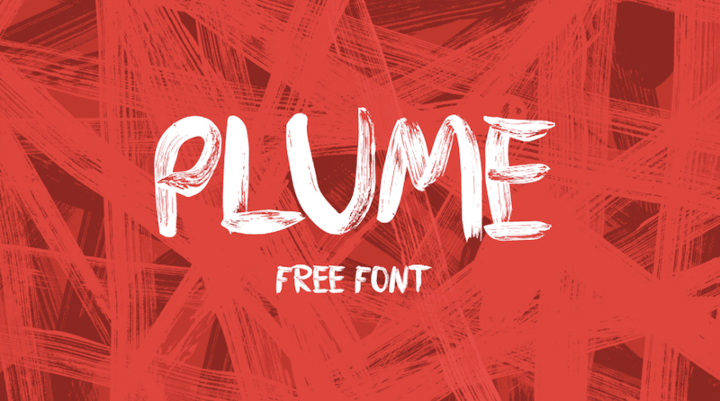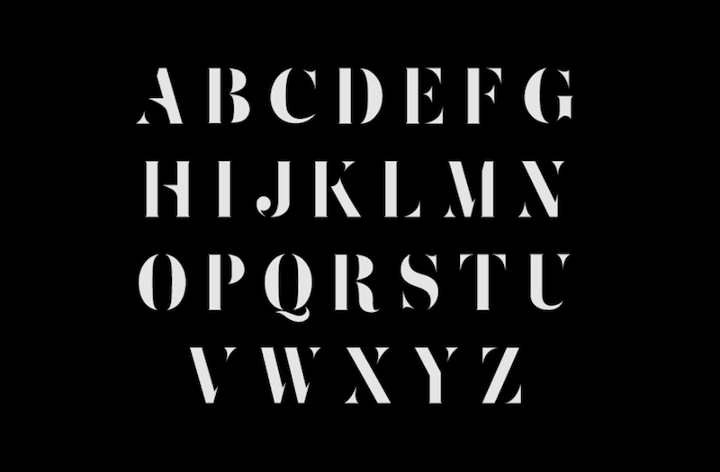
When working on a project yourself, freebies like these can come to the rescue when you have to get along on a tight budget but, more often that that, they simply are the missing piece that’ll make your design complete.
L-7 Stencil
Luis Calzadilla’s font L-7 Stencil is a good match for all those occasions when you want to make a bold statement while keeping the typeface itself rather than sleek and slim. Characteristic for the sans-serif font are the stencil-style, fragmented letters and the rounded terminals. The font supports capital letters and numbers and can be used for free in personal projects. If you want to use it in a commercial project, please be sure to credit the designer.
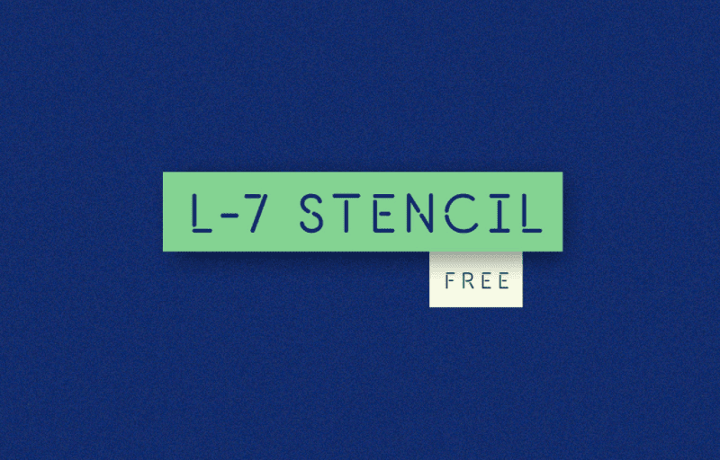
Westfalia
It’s not only the name of the brush sans Westfalia that wakes allusions of the famous campervan. With its hand-drawn feel, messy edges, and varied line thickness, the font also caters for a warm feeling of authenticity and adventure. Westfalia comes in one weight, with capital letters, numbers and punctuation marks, and works especially well as bold headings or on posters. It’s free to use for both personal and commercial projects.
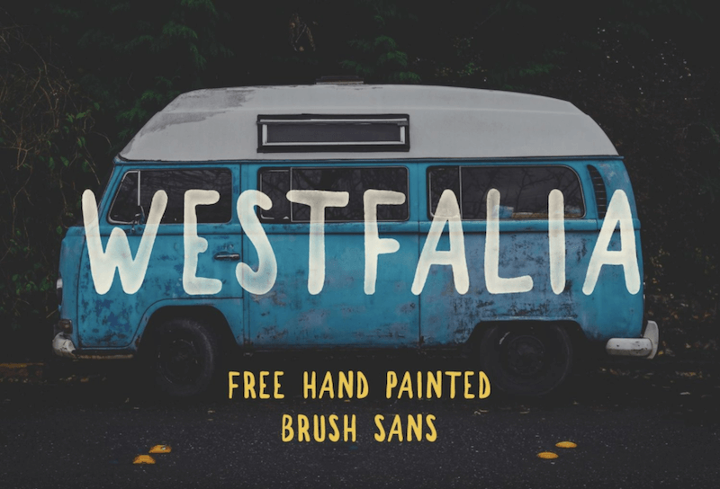
Setta Script
If you’re looking for something to add a personal touch to your projects, the modern calligraphy typeface Setta Script might be for you. It comes with 244 glyphs and 69 alternate characters with Opentype features. Ligatures are also supported. A perfect match for greeting cards and invitations.
Old Growth
Inspired by the old growth forests of the West Coast, Old Growth is a rough sans-serif font with edges as uneven as the treetops in the woods. This one works especially well for branding, quotes, and headlines. You’re free to use the font to your liking in personal as well as commercial projects.
Moderne Sans
Inspired by the typography of the 1920’s, Marius Kempken designed Moderne Sans. The typeface is based on uppercase letters, but lowercase letters and numbers are included in the font, too. You may use Moderne Sans freely in both personal as well as commercial work.
Octanis
The font family Octanis beautifully merges the new and the old. It comes in eight styles ranging from modern, even a bit futuristic sans-serif versions to a rather vintage-inspired slab serif. A nice choice for headlines and logos, but also paragraphs of text look great with it. You may use the typeface for free in both personal and commercial projects.
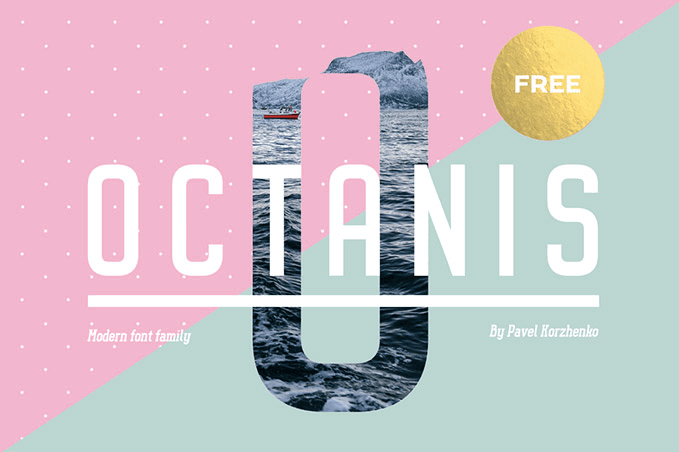
Escafina
A balanced upright script with style and moxie. That’s Escafina. Escafina is a modern interpretation of the letters you usually find in mid-century advertising and signage. It comes in three styles (high, medium, and low) and supports over 100 languages. Personal licenses are pay-as-you-want.
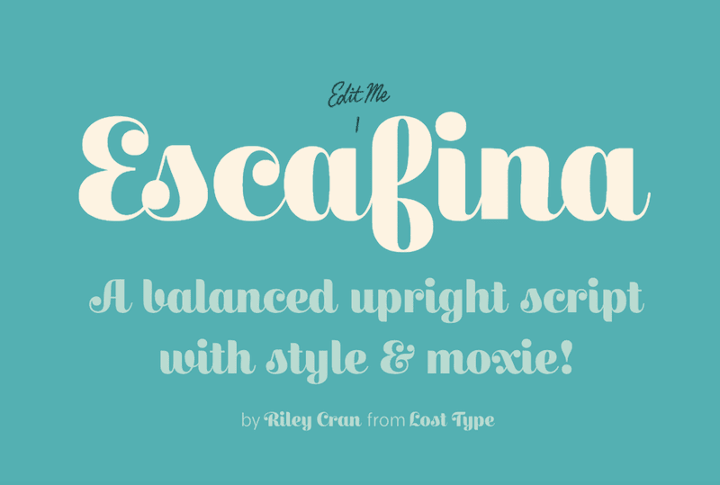
Noto
You know those little boxes that appear when a computer can’t render a character? Because of their shape, they are often referred to as “tofu”. Google’s answer to these little boxes is a font family that aims to support all existing languages and, thus, put an end to “tofu”. And what name could be better suited for such an undertaking as “Noto”, which is assembled from “no more tofu”? The Noto typeface comes in multiple styles and weights and is freely available. Perfect for when your project needs to support languages that other fonts usually fail to display.
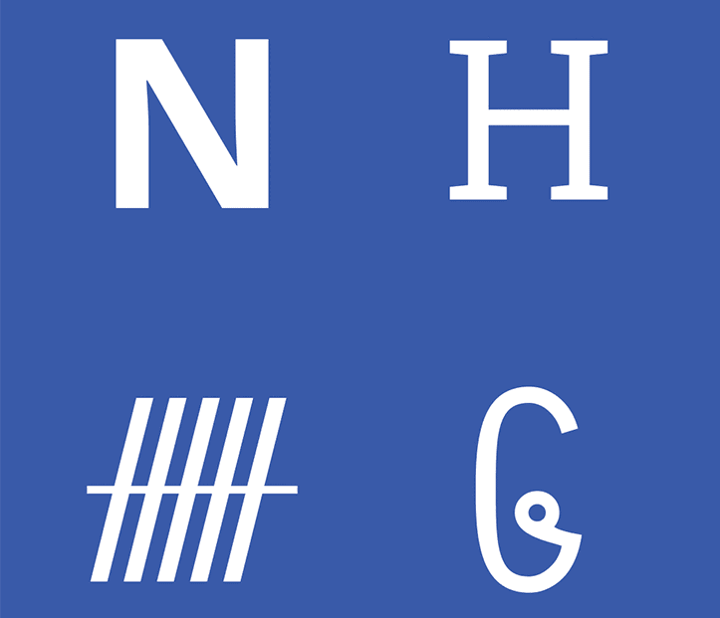
Bonfire
To give your project an authentic, handmade touch, Bonfire might be just what you were looking for. The hand-drawn brush font shines with its unique swashes. The free version includes upper and lowercase letters in one style that you may use for personal projects.
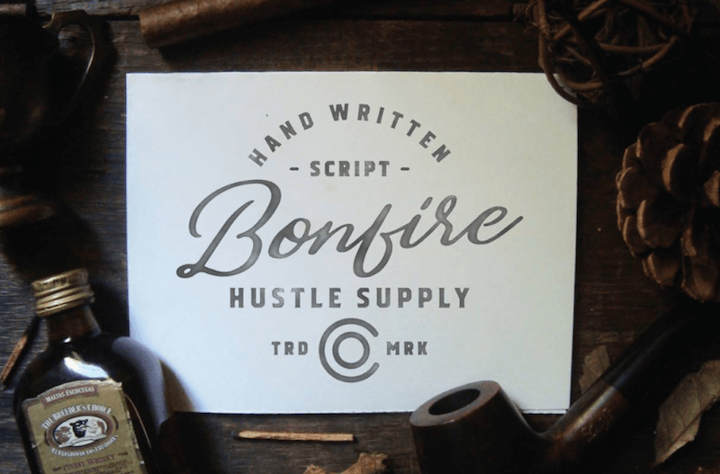
Etna
If you’re looking for a typeface with a seamless flow that still makes a bold statement, Etna may be one for you. Characteristic for Etna are the pointy edges of the capital letters that majestically stand out like the tip of a mountain. While the full version covers Latin as well as Cyrillic alphabets, the free version comes with Latin characters only. Free for personal use.
Vintii
Vintii is certainly a friendly and playful typeface that doesn’t take itself too seriously. With its cut-out looks, it’s a good catch for headlines and short descriptions, but it’s readable in larger blocks of text as well. The font contains all basic glyphs and characters and can be used to your liking.
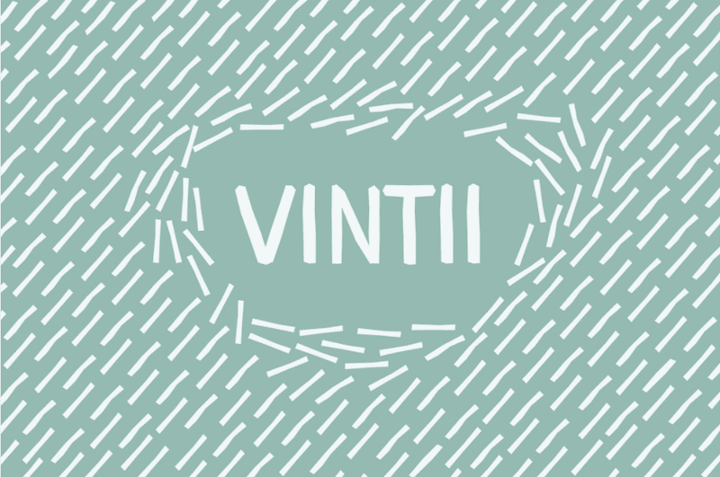
Technically speaking, Multicolore isn’t a font as it’s multicolored and you cannot write with it in your favorite program either. Instead, you’ll need a vector editing application to create text with it. But that’s nothing to worry about as the bold and playful fellow is best suited for text that includes only a few words anyhow. Multicolore comes in EPS, AI and PDF formats and is free even for commercial use.
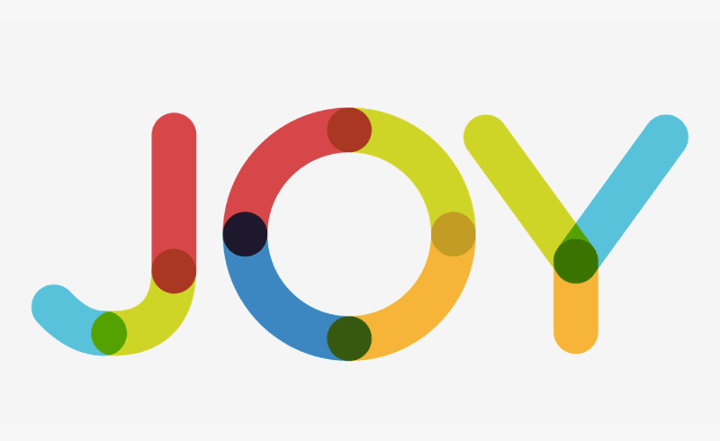
Free Fonts With Personality And Style